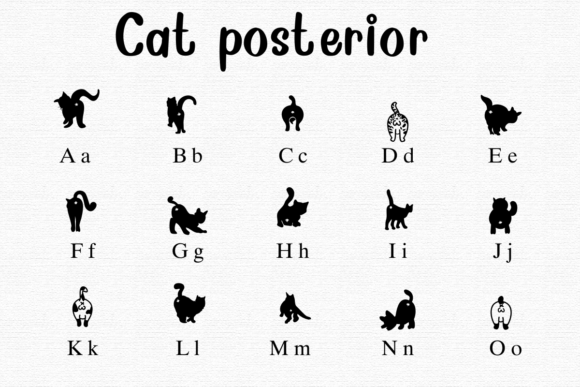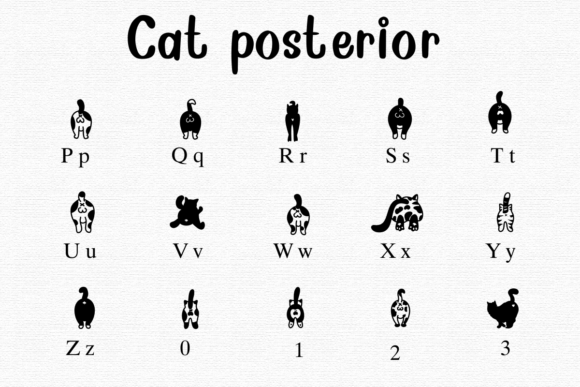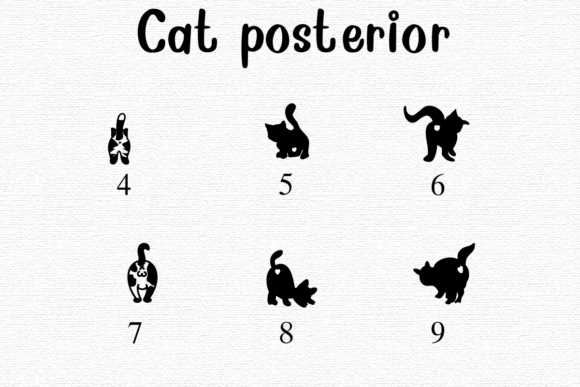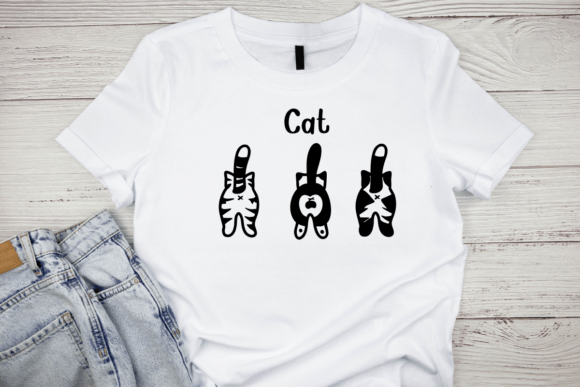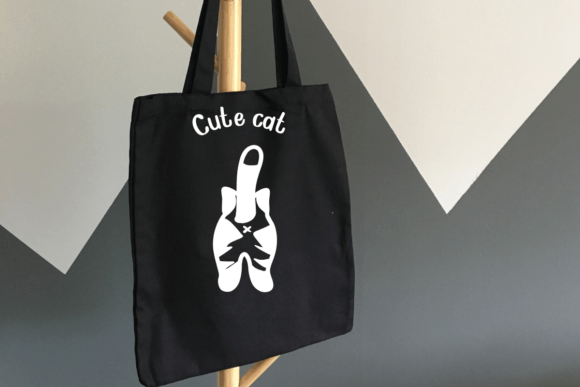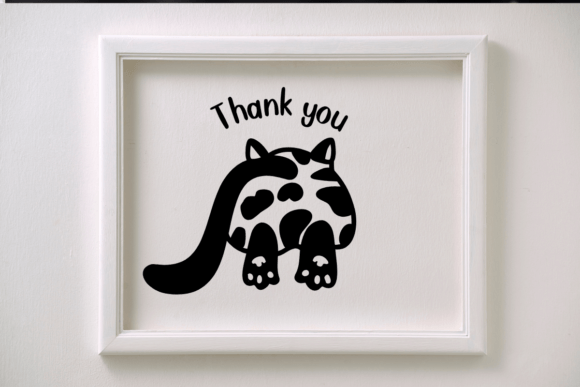
Unleash Your Creativity with Cat Posterior Font: A Quirky Dingbat Font
Are you a designer, crafter, or DIY enthusiast looking for a unique and fun font to add a personal touch to your creative projects? Look no further than the Cat Posterior Font, a quirky dingbat font that’s purr-fect for a variety of applications. In this article, we’ll explore the features and benefits of this delightful font and show you how it can enhance your wedding invitations, DIY projects, crafts, decorations, logos, and more.
What is Cat Posterior Font?
Cat Posterior Font is a dingbat font that features adorable cat-themed designs, including cute cat faces, paws, and other feline-inspired illustrations. This font is perfect for anyone who loves cats and wants to add a playful touch to their creative projects. The font is highly versatile and can be used for a wide range of applications, from digital designs to print materials.
Features of Cat Posterior Font
- Unique and Quirky Designs: The Cat Posterior Font features unique and quirky cat-themed designs that are sure to add a personal touch to your creative projects.
- Highly Versatile: This font can be used for a wide range of applications, including wedding invitations, DIY projects, crafts, decorations, logos, and more.
- Scalable: The font is highly scalable, allowing you to use it for both digital and print materials.
Uses of Cat Posterior Font
The Cat Posterior Font is perfect for a variety of creative projects, including:
- Wedding Invitations: Add a playful touch to your wedding invitations with the Cat Posterior Font. You can use it to create custom illustrations, borders, and other design elements.
- DIY Projects: The Cat Posterior Font is perfect for DIY enthusiasts who want to add a personal touch to their projects. You can use it to create custom signs, decorations, and other craft projects.
- Crafts: The font is great for crafters who want to create unique and personalized gifts, such as handmade cards, gift tags, and other paper crafts.
- Decorations: Use the Cat Posterior Font to create custom decorations, such as wall art, banners, and other home decor projects.
- Logos: The font can be used to create custom logos for businesses, including pet-sitting services, animal shelters, and other cat-related businesses.
Tips for Using Cat Posterior Font
Here are some tips for using the Cat Posterior Font:
- Experiment with Different Sizes: The Cat Posterior Font is highly scalable, so experiment with different sizes to find the perfect fit for your project.
- Combine with Other Fonts: Combine the Cat Posterior Font with other fonts to create a unique and personalized look.
- Use for Digital and Print Materials: The font can be used for both digital and print materials, making it perfect for a wide range of applications.
The Cat Posterior Font is a quirky and fun dingbat font that’s perfect for designers, crafters, and DIY enthusiasts who want to add a personal touch to their creative projects. With its unique and quirky designs, high versatility, and ease of use, this font is sure to become a favorite in your font collection. So why not give it a try and see how it can enhance your wedding invitations, DIY projects, crafts, decorations, logos, and more?